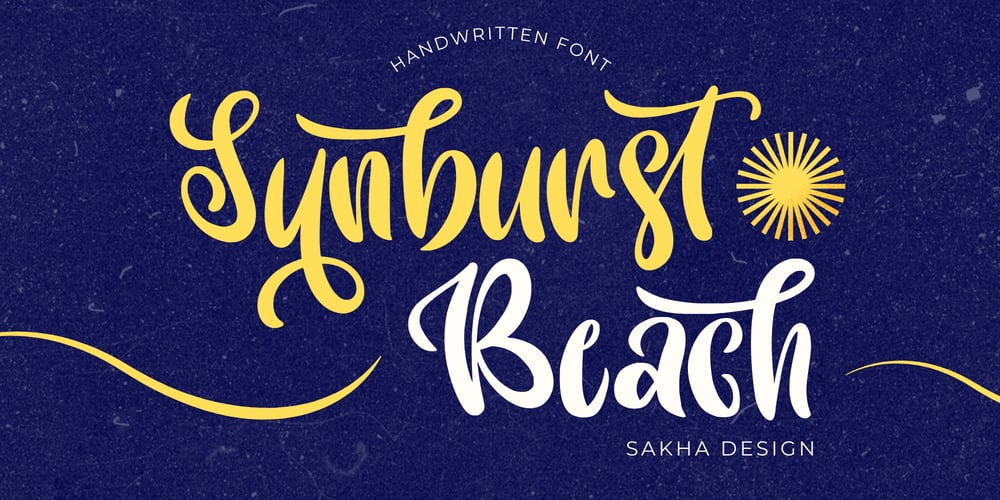
Sunburst Beach
Sunburst Beach font
Sunburst Beach Font Family was designed by Alif Ryan Zulfikar and published by Sakha Design. Sunburst Beach contains 2 styles and family package options. Experience the beauty of handwriting with Sunburst Beach. Its graceful strokes and natural curves make it perfect for projects like greeting cards, wedding invites, or branding. This handwritten font adds a unique, authentic feel to any design, making your creations truly memorable.